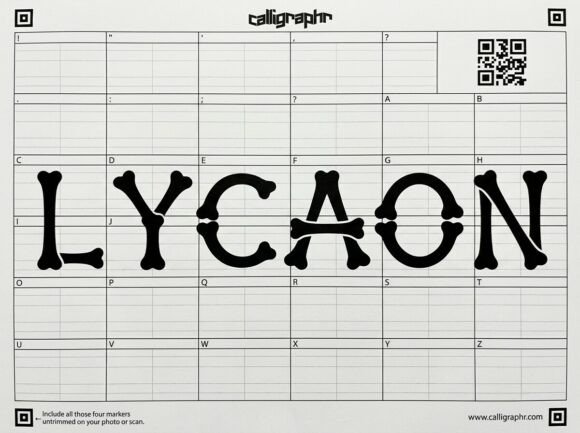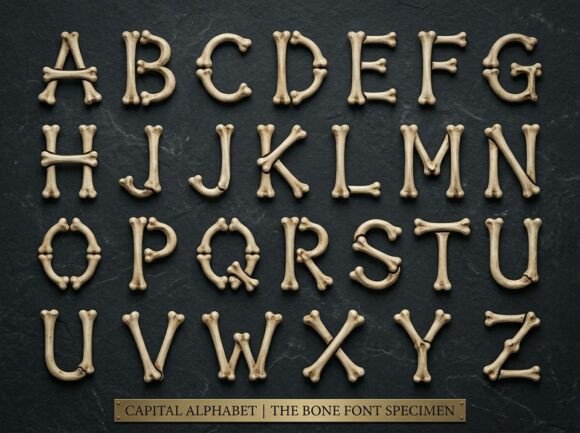
Introduction to Lycus Font
Have you ever stared at a blank canvas, waiting for inspiration to strike? For designers, this moment is all too familiar. The blank slate can be daunting, but with the right tools, it can also be a blank check to unleash your creativity. That’s where the Lycus Font comes in – a game-changing design resource that elevates your creative projects to the next level.
| 👤 Author | kulturrno |
This stunning display font is designed to be the centerpiece of any layout, making it perfect for creators who want to break away from the ordinary. With its distinct artistic elements and strong character, the Lycus Font delivers a high-end, professional aesthetic without compromising on personality.
Key Features of Lycus Font
- High-quality font design, ideal for creative projects requiring a unique touch
- Includes a wide range of characters, including uppercase and lowercase letters, numbers, and special symbols
Honest Review: Lycus Font
I recently had the chance to work with the Lycus Font, and I must say it’s been a game-changer for my creative project. As a designer, I’m always on the lookout for high-quality design resources that can elevate my work, and Lycus Font definitely delivers.
- ✨ High-quality typography with a wide range of styles and weights
- ⚠️ Limited customization options, which may not be ideal for designers who want to fine-tune their fonts
Overall, I’m thoroughly impressed with the Lycus Font. Its high-quality typography and versatility make it an excellent addition to any designer’s toolkit. While it may have some limitations, I believe the benefits far outweigh the drawbacks. If you’re looking for a reliable design resource, I highly recommend giving Lycus Font a try.
Tips for Getting the Most Out of Lycus Font
To get the most out of Lycus Font, experiment with different font sizes, colors, and styles to find the perfect combination for your design project. You can also pair Lycus Font with other design resources to create a unique and eye-catching look.